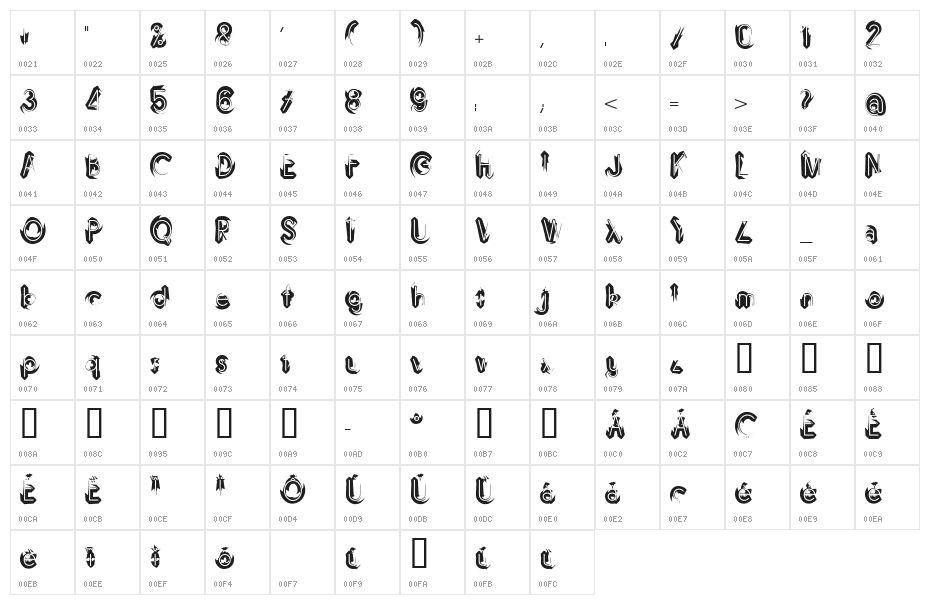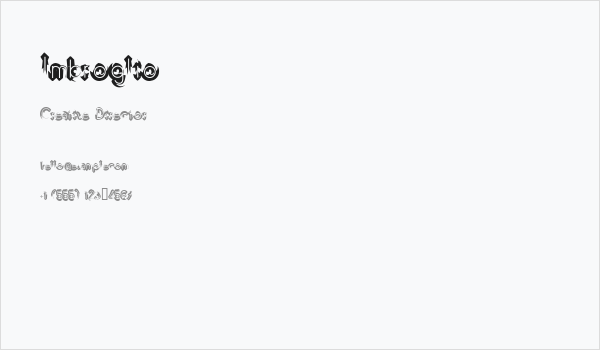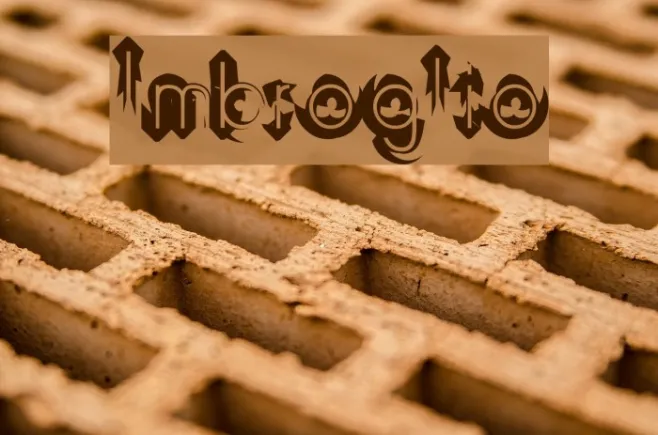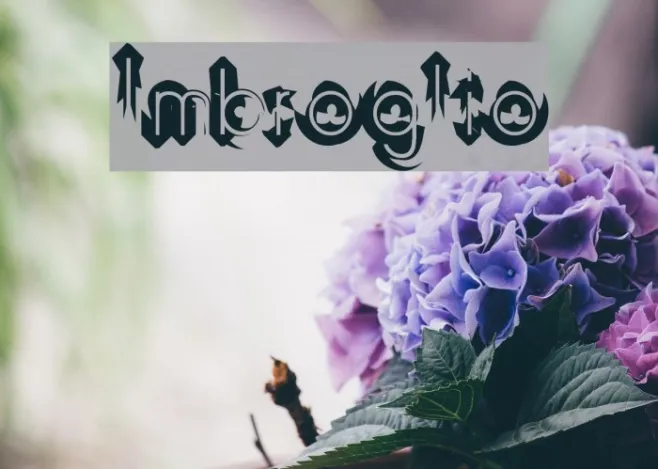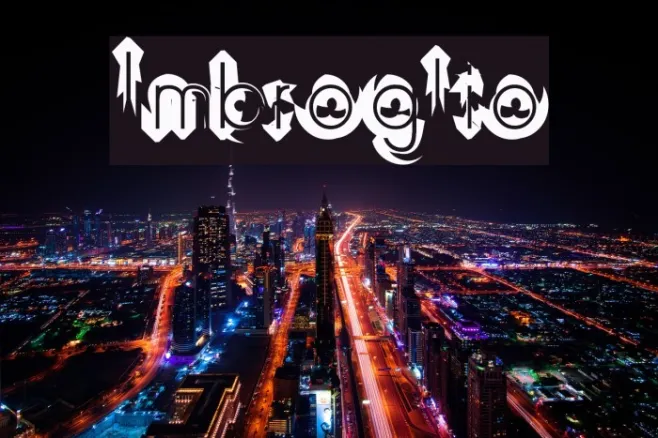
Imbroglio Font
Imbroglio Description
This font features a bold and dynamic design with a strong visual impact. The characters are constructed with thick, angular strokes that create a sense of movement and energy. Each letter is uniquely styled, incorporating sharp edges and geometric shapes that give it a futuristic and edgy appearance. The font maintains a consistent weight throughout, ensuring readability while still offering a distinct and artistic flair. The numbers and special characters follow the same design principles, making them cohesive with the alphabet. This font is perfect for projects that require a modern and eye-catching aesthetic.
| Proposed Projects | Ideal for use in branding, posters, album covers, and any project needing a modern, edgy look. |